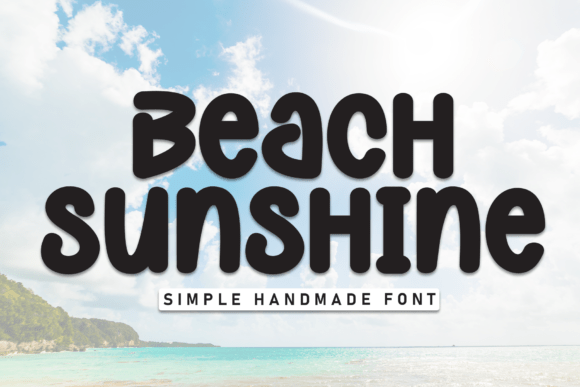
Introducing Beach Sunshine Font: The Perfect Blend of Warmth and Clarity
Are you looking for a font that can bring a touch of warmth and approachability to your design projects? Look no further than Beach Sunshine Font, a casual and neat display font designed to make your branding, headlines, and everyday designs shine. With its clean structure and balanced letterforms, Beach Sunshine Font is the perfect choice for anyone looking to add a dash of charm and readability to their work.
The Design Philosophy Behind Beach Sunshine Font
Beach Sunshine Font was created with a clear design philosophy in mind: to bring warmth and clarity to your projects. The font’s clean structure and approachable style make it perfect for a wide range of applications, from branding and headlines to everyday designs. The designers behind Beach Sunshine Font wanted to create a font that would feel genuine and inviting, and they have succeeded in creating a font that is both charming and highly readable.
Key Features of Beach Sunshine Font
- Clean Structure: Beach Sunshine Font features a clean and simple structure that makes it easy to read and understand.
- Approachable Style: The font’s approachable style makes it perfect for a wide range of applications, from formal to informal designs.
- Balanced Letterforms: The balanced letterforms in Beach Sunshine Font offer excellent readability and charm, making every message feel genuine and inviting.
- Highly Readable: Beach Sunshine Font is designed to be highly readable, even at small sizes, making it perfect for body text and headlines.
What Makes Beach Sunshine Font So Versatile?
Beach Sunshine Font is an incredibly versatile font that can be used in a wide range of applications. Its clean structure and approachable style make it perfect for:
- Branding: Use Beach Sunshine Font to create a strong brand identity that feels genuine and inviting.
- Headlines: Beach Sunshine Font is perfect for headlines, with its bold and eye-catching design.
- Everyday Designs: Use Beach Sunshine Font for everyday designs, such as flyers, brochures, and posters.
- Digital Designs: Beach Sunshine Font is also perfect for digital designs, such as website headers, social media graphics, and more.
The Benefits of Using Beach Sunshine Font
There are many benefits to using Beach Sunshine Font in your design projects. Some of the key benefits include:
- Improved Readability: Beach Sunshine Font is designed to be highly readable, making it perfect for body text and headlines.
- Enhanced Charm: The font’s balanced letterforms and approachable style add a touch of charm to every message.
- Increased Versatility: Beach Sunshine Font can be used in a wide range of applications, from branding and headlines to everyday designs.
- Unique Style: Beach Sunshine Font has a unique style that sets it apart from other fonts, making it perfect for designers looking to create something new and exciting.
How to Use Beach Sunshine Font in Your Design Projects
Using Beach Sunshine Font in your design projects is easy. Here are a few tips to get you started:
- Pair it with Other Fonts: Beach Sunshine Font pairs well with other fonts, making it perfect for use in combination with other typefaces.
- Experiment with Sizes: Beach Sunshine Font is highly readable at a wide range of sizes, making it perfect for use in both headlines and body text.
- Play with Colors: Beach Sunshine Font looks great in a wide range of colors, making it perfect for use in a variety of design applications.
In conclusion, Beach Sunshine Font is a casual and neat display font that is perfect for designers looking to add a touch of warmth and approachability to their design projects. With its clean structure, balanced letterforms, and approachable style, Beach Sunshine Font is the perfect choice for anyone looking to create a strong brand identity, eye-catching headlines, or everyday designs that feel genuine and inviting.